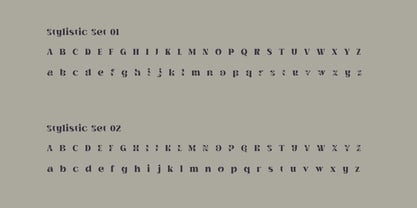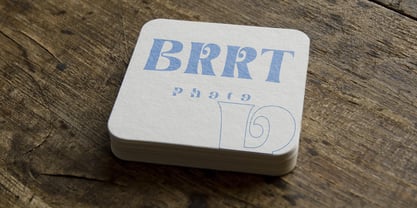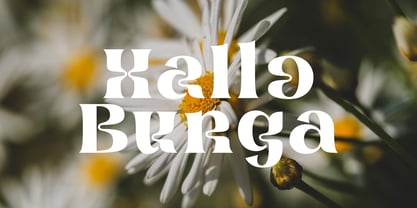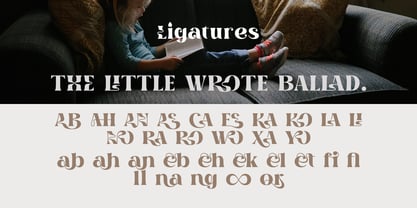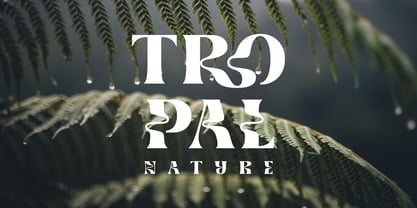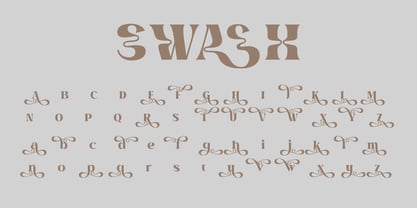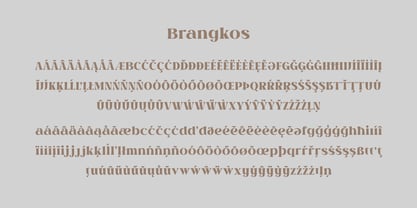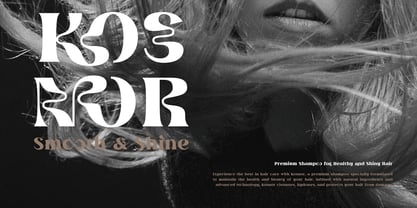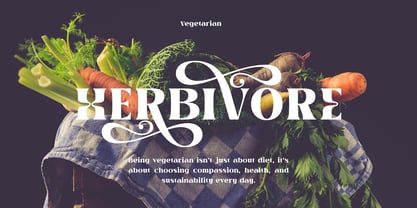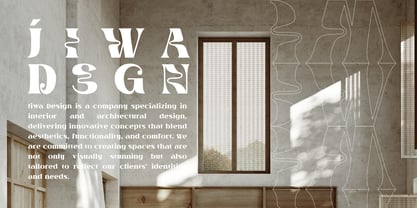
Brangkos
Brangkos A Wave Serif Typeface – Bold curves, organic flow made for natural beauty brands.
Meet Brangkos, a modern wave serif typeface inspired by the natural elegance of flowing water and organic landscapes. Designed to capture the rhythm of nature, Brangkos brings a sense of movement, softness, and bold personality into your branding.
With its distinctive wave-like curves and refined serifs, Brangkos is perfect for beauty brands, natural product packaging, wellness logos, and lifestyle editorials. Every letterform is thoughtfully crafted to balance artistic flair with readability making your brand not only stand out, but also feel alive. Whether you’re creating a skincare label, a botanical perfume line, or a holistic wellness studio, Brangkos will infuse your identity with organic charm and confident character.